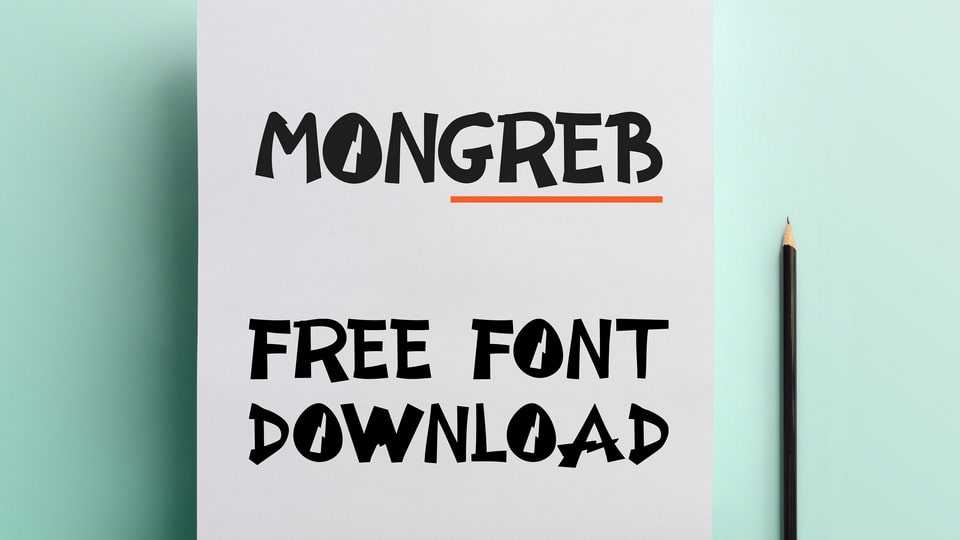
Download Mongreb font, a typeface that embodies the perfect blend of boldness and playfulness. Mongreb font is custom-made for projects that demand attention and a sense of fun.
Designer: SquareGraphic Lab